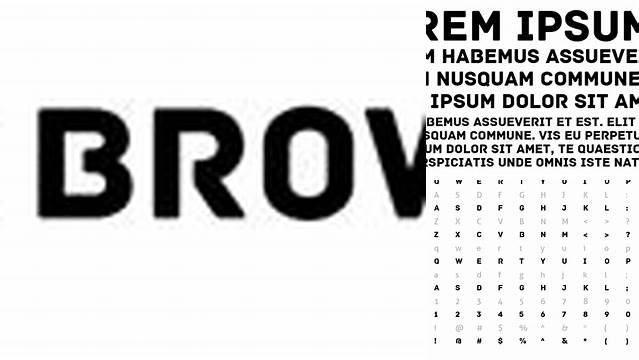
Introduction: Diving into the World of Archive Regular Font
Hey guys! Let's talk about fonts, specifically the Archive Regular Font. If you're on the hunt for a font that's both modern and versatile, you've probably stumbled upon Archive Regular. It's a sleek, sans-serif typeface that's perfect for a wide array of projects, from website headers to print materials. In this article, we're going to dive deep into what makes Archive Regular so special, where you can snag it for free, and how to best use it in your designs. Whether you're a seasoned designer or just starting out, understanding the nuances of a font like Archive Regular can significantly elevate your work. The clean lines and geometric structure of this font give it a contemporary edge, making it a go-to choice for projects that require a touch of modern elegance. We’ll explore the characteristics that set Archive Regular apart, comparing it with other popular fonts and highlighting its best use cases. Think logos, posters, websites, and even branding materials—Archive Regular can handle it all. Plus, we'll walk you through the process of downloading and installing the font, ensuring you’re ready to start creating in no time. So, buckle up and let's explore the world of Archive Regular font, your new favorite tool for adding a touch of sophistication to your designs. By the end of this guide, you’ll not only know where to find it but also how to make the most of its unique aesthetic qualities.
What Makes Archive Regular Font Special?
So, what exactly makes Archive Regular stand out from the sea of fonts out there? Well, let's break it down. First off, it’s a sans-serif font, which means it doesn't have those little decorative strokes (serifs) at the ends of the letters. This gives it a clean, minimalist look that's super popular in modern design. The geometric structure of Archive Regular is another key feature. Each letter is carefully crafted with precise lines and shapes, creating a sense of balance and harmony. This makes it incredibly readable, whether you're using it for headlines or body text. But it's not just about looks, guys. Archive Regular is also incredibly versatile. Its neutral yet modern aesthetic means it can fit into a wide range of design styles, from corporate branding to creative posters. Think about how you can use it to create a sleek logo, a professional website header, or even eye-catching social media graphics. The possibilities are endless! One of the reasons designers love Archive Regular is its ability to convey a sense of sophistication without being overly flashy. It’s the kind of font that quietly enhances your design, making it look polished and professional. Plus, because it’s available for free, it’s an accessible option for everyone, whether you're a student, a freelancer, or part of a big design agency. Now, let's talk about the practical side. Archive Regular comes in a variety of weights, which gives you even more flexibility in your designs. You can use the regular weight for body text, the bold weight for headlines, and the light weight for subheadings. This helps create a clear visual hierarchy and makes your content easy to read. In short, Archive Regular is special because it combines a modern, minimalist aesthetic with versatility and readability. It’s a font that can elevate your designs and help you create a professional, polished look. And the best part? It’s free, so you can start experimenting with it right away. How cool is that?
Best Practices for Using Archive Regular Font in Your Designs
So, you've got Archive Regular font installed and ready to go – awesome! But how do you actually use it effectively in your designs? Let's dive into some best practices to make sure you're making the most of this versatile typeface. First off, think about hierarchy. Archive Regular works great for both headlines and body text, but you'll want to use different weights and sizes to create a clear visual structure. For example, you might use the bold weight for headlines to grab attention and the regular weight for body text to ensure readability. This helps guide the viewer's eye and makes your content easier to digest. Another key consideration is contrast. Archive Regular is a clean, modern font, so it pairs well with other typefaces that have a bit more personality. Try pairing it with a serif font for a touch of elegance or a script font for a more playful look. Just make sure the fonts complement each other and don't clash. Spacing is also crucial. Pay attention to the letter spacing (tracking) and line spacing (leading) in your designs. Too little spacing can make your text look cramped and difficult to read, while too much spacing can make it feel disjointed. Experiment with different values until you find a balance that looks good. And here's a pro tip, guys: don't be afraid to experiment! Archive Regular is a versatile font, so it can work in a variety of contexts. Try using it in logos, websites, posters, and even branding materials. Play around with different colors, sizes, and weights to see what works best for your project. But remember, less is often more. Archive Regular's clean, minimalist aesthetic means it doesn't need a lot of bells and whistles to look good. Avoid using too many decorative elements or effects that can detract from its simplicity. In short, the best practices for using Archive Regular font in your designs involve creating hierarchy, choosing contrasting typefaces, paying attention to spacing, and experimenting with different applications. With a little practice, you'll be a pro at using this awesome font in no time!
Examples of Effective Designs Using Archive Regular Font
Let's get inspired, shall we? Seeing Archive Regular font in action can give you some great ideas for your own projects. This font's versatility means it's been used in a ton of different designs, from sleek websites to eye-catching posters. One of the most common uses for Archive Regular is in branding. Its clean, modern lines make it perfect for logos and brand identities that want to convey a sense of professionalism and sophistication. Think tech companies, startups, and creative agencies – these are the kinds of brands that often gravitate towards fonts like Archive Regular. On websites, Archive Regular shines as both a headline and body text font. Its readability ensures that visitors can easily read your content, while its stylish appearance adds a touch of elegance. Many websites use Archive Regular for navigation menus, headings, and even call-to-action buttons. Posters and flyers are another great place to use Archive Regular. Its bold weight is perfect for grabbing attention, while its regular weight is ideal for conveying information clearly. Whether you're designing a poster for a concert, a conference, or a product launch, Archive Regular can help you create a visually appealing and effective design. And let's not forget about print materials. Archive Regular works beautifully in brochures, business cards, and even book covers. Its clean lines and geometric structure make it easy to read in print, and its modern aesthetic ensures that your designs look fresh and up-to-date. Now, let's talk about some specific examples. Imagine a tech startup with a sleek, minimalist logo set in Archive Regular Bold. The font conveys a sense of innovation and confidence, perfectly aligning with the brand's image. Or picture a website with a clean, uncluttered design, using Archive Regular for both headings and body text. The font's readability ensures that visitors can easily find the information they need, while its stylish appearance enhances the overall user experience. These examples highlight the versatility of Archive Regular font and its ability to elevate a wide range of designs. By studying how others have used it effectively, you can gain valuable insights and inspiration for your own projects. So, go ahead and explore the world of Archive Regular designs – you might just discover your next favorite font pairing or layout idea!
Conclusion: Elevate Your Designs with Archive Regular Font
So, there you have it, guys! A comprehensive guide to Archive Regular font. We've covered everything from what makes it special to where to download it for free, how to install it, best practices for using it, and even troubleshooting common issues. By now, you should have a solid understanding of this versatile typeface and how it can elevate your designs. Archive Regular's clean, modern aesthetic makes it a fantastic choice for a wide range of projects. Whether you're designing a logo, a website, a poster, or a brochure, this font can help you create a polished and professional look. Its geometric structure and sans-serif design give it a timeless quality, ensuring that your designs will look fresh and up-to-date for years to come. And the best part? It's free! This makes Archive Regular an accessible option for everyone, from students and freelancers to big design agencies. You can experiment with it without breaking the bank and discover all the creative possibilities it offers. Remember, typography is a crucial element of design. Choosing the right font can make a huge difference in how your message is perceived. Archive Regular's versatility and readability make it a reliable choice for conveying your message clearly and effectively. By following the best practices we've discussed, you can use Archive Regular to create stunning designs that stand out from the crowd. So, go ahead and start experimenting! Download Archive Regular font, install it on your computer, and play around with different weights, sizes, and applications. See how it looks in your logos, websites, posters, and print materials. Get inspired by the examples we've shared and let your creativity flow. And if you encounter any issues along the way, don't hesitate to refer back to this guide or reach out to the design community for help. With Archive Regular font in your toolkit, you're well-equipped to create designs that are both visually appealing and highly effective. Happy designing, guys! We can’t wait to see what you create with this amazing font.